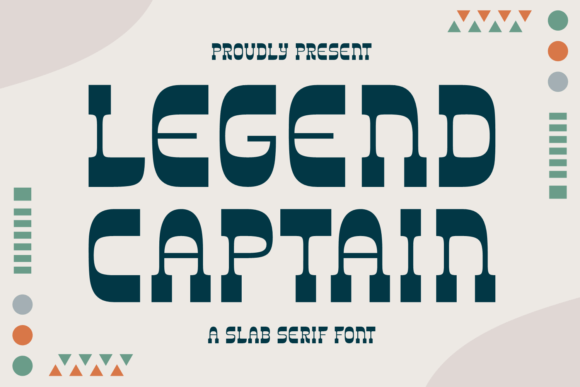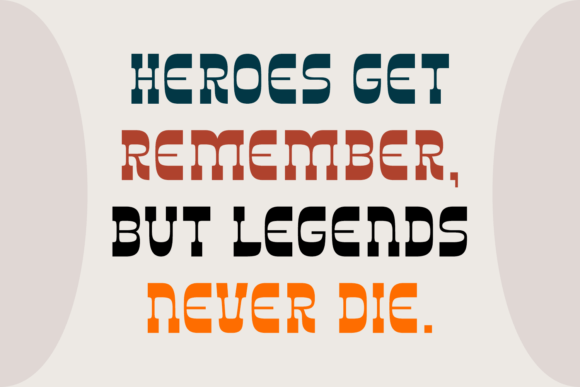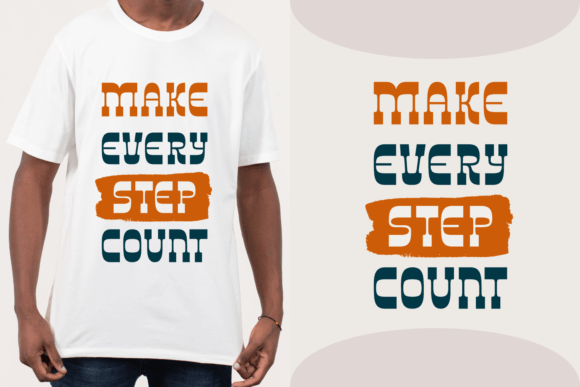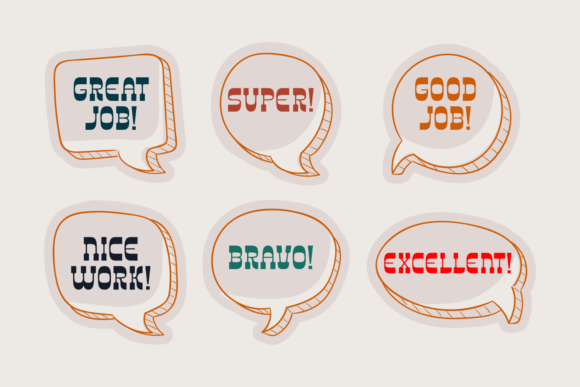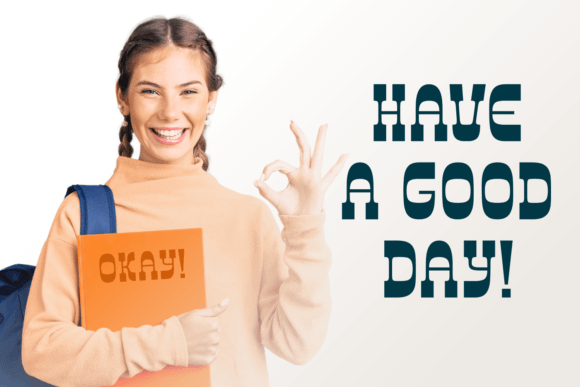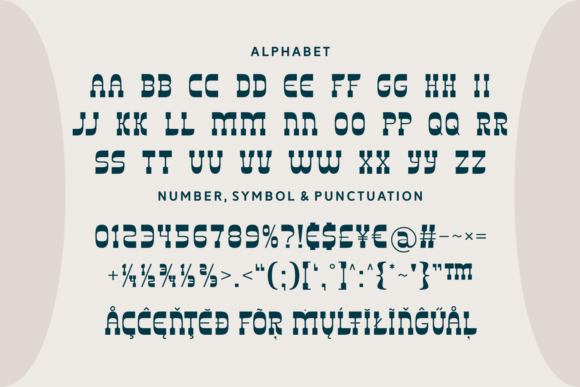
Legend Captain Font
About Legend Captai
n Font
Legend Captain font is a captivating and distinctive slab serif typeface, blending vintage charm with modern flair. Its bold and robust letterforms command attention, while subtle curves add a touch of whimsy. Perfect for headlines, logos, and branding projects, Legend Captain infuses any design with character and charisma.